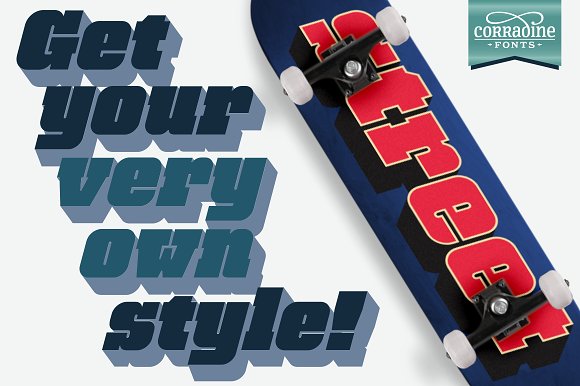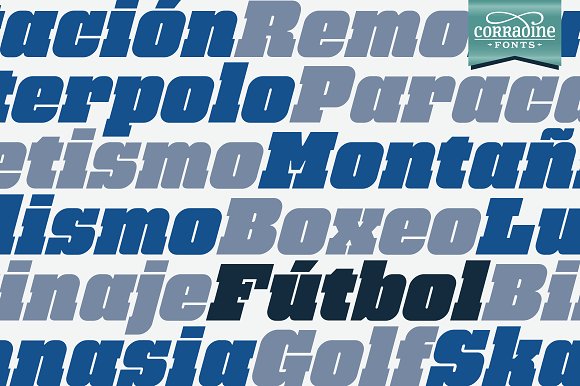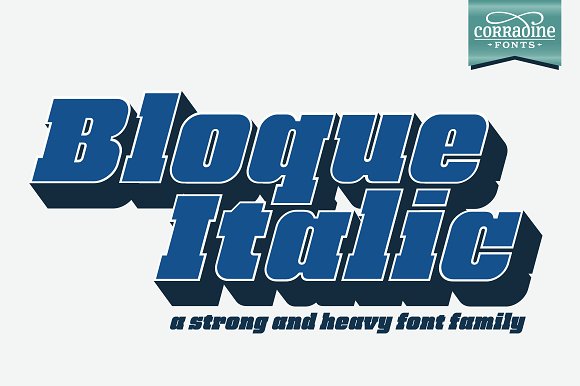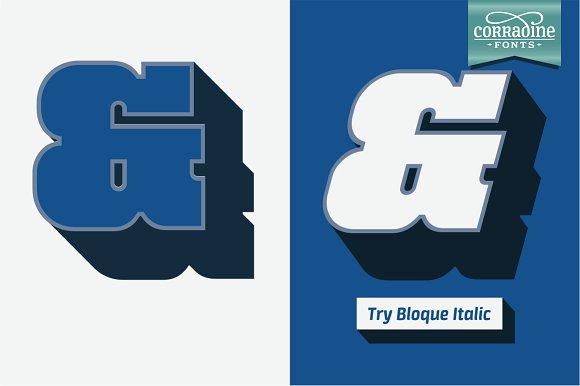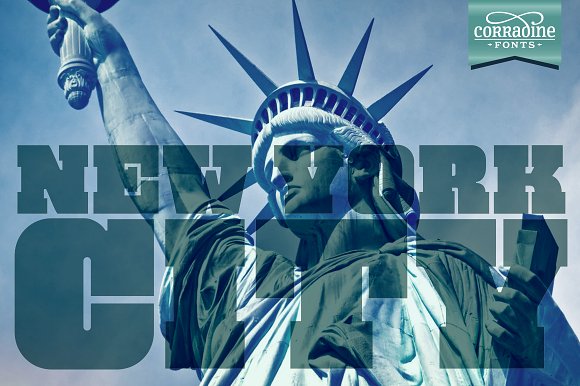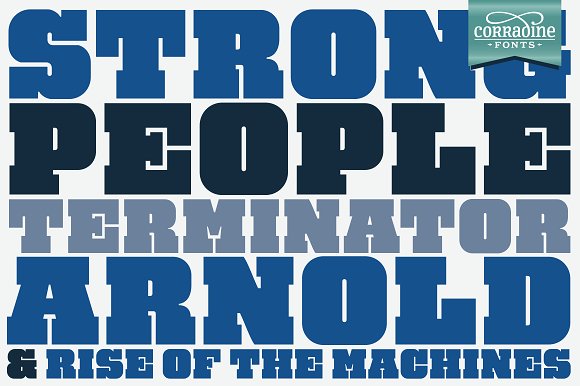
Bloque Family Font: Elevate Your Designs with a Heavy Slab Font
Are you tired of using the same old fonts in your designs? Look no further than the Bloque Family Font, a heavy slab font family that is sure to take your creations to the next level. With its unique three-layer design, including an inline and a shadow version, Bloque offers endless possibilities for making different color combinations that will make your designs stand out.
What is Bloque Family Font?
Bloque is a carefully crafted font family designed to add a touch of sophistication and elegance to any design project. Its heavy slab serif style gives it a sturdy and dependable feel, making it perfect for use in a variety of applications, from logos and branding to packaging and advertising.
Key Features of Bloque Family Font
- Three-Layer Design: Bloque features three distinct layers, including a main font, an inline version, and a shadow version. This allows designers to experiment with different color combinations and effects to create unique and eye-catching designs.
- Heavy Slab Serif Style: The font’s heavy slab serif style gives it a bold and sturdy feel, making it perfect for use in designs where you want to make a statement.
- High Versatility: Bloque is designed to be highly versatile, making it suitable for use in a wide range of design applications, from digital projects to print materials.
How to Use Bloque Family Font in Your Designs
Using Bloque Family Font in your designs is easy. Here are a few tips to get you started:
- Experiment with Color Combinations: Take advantage of Bloque’s three-layer design to experiment with different color combinations. Try pairing the main font with the inline or shadow versions to create unique and eye-catching effects.
- Use it for Headings and Titles: Bloque’s heavy slab serif style makes it perfect for use in headings and titles. Use it to add a touch of sophistication and elegance to your designs.
- Mix and Match with Other Fonts: Bloque can be paired with a variety of other fonts to create interesting and dynamic designs. Try pairing it with a sans-serif font for a bold and modern look.
Benefits of Using Bloque Family Font
There are many benefits to using Bloque Family Font in your designs. Here are a few:
- Unique and Eye-Catching Designs: Bloque’s three-layer design and heavy slab serif style make it perfect for creating unique and eye-catching designs that will stand out from the crowd.
- High Versatility: Bloque can be used in a wide range of design applications, making it a great addition to any designer’s font library.
- Easy to Use: Bloque is easy to use and can be incorporated into your designs in just a few simple steps.
In conclusion, Bloque Family Font is a versatile and highly effective font family that is sure to elevate your designs to the next level. Its unique three-layer design, heavy slab serif style, and high versatility make it perfect for use in a wide range of design applications. Whether you’re a designer, crafter, or simply someone looking to add a touch of sophistication to your projects, Bloque is a great choice.
Tips and Tricks for Getting the Most out of Bloque Family Font
- Experiment with Different Color Combinations: Don’t be afraid to try out different color combinations with Bloque. Its three-layer design makes it easy to experiment with different effects and styles.
- Use it in Combination with Other Fonts: Bloque can be paired with a variety of other fonts to create interesting and dynamic designs. Try pairing it with a sans-serif font for a bold and modern look.
- Pay Attention to Font Size and Spacing: As with any font, pay attention to font size and spacing when using Bloque. Experiment with different sizes and spacing to find the perfect combination for your design.